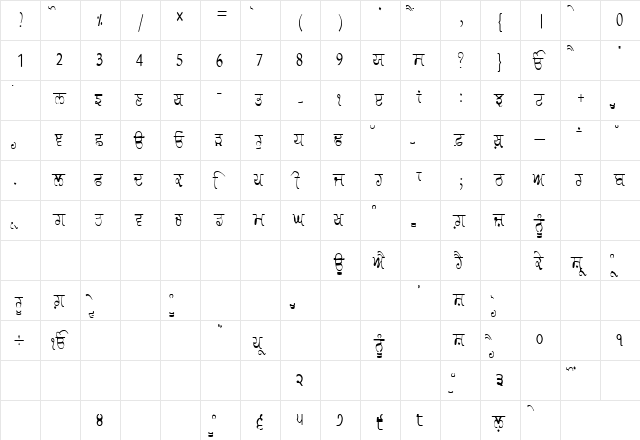
GurmukhiLys 030 Condensed Normal
Design Context for GurmukhiLys 030 Condensed Typeface
GurmukhiLys 030 Condensed is a composed and adaptable typeface that performs quietly and consistently across a wide range of design contexts. The condensed width makes it efficient for tight spaces without sacrificing legibility.